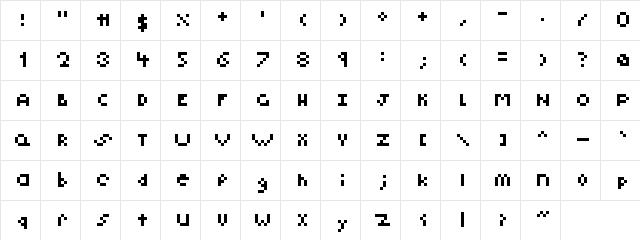
License to Pixel Standard Regular
License to Pixel Standard celebrates the constraints of early digital type, turning pixel geometry into a distinctive and immediately recognisable style.
A natural choice for retro game titles, chiptune music branding, 8-bit UI, and digital nostalgia projects.
Pro Tip: Pair License to Pixel Standard with flat colour palettes and simple geometric UI elements to reinforce its digital aesthetic.